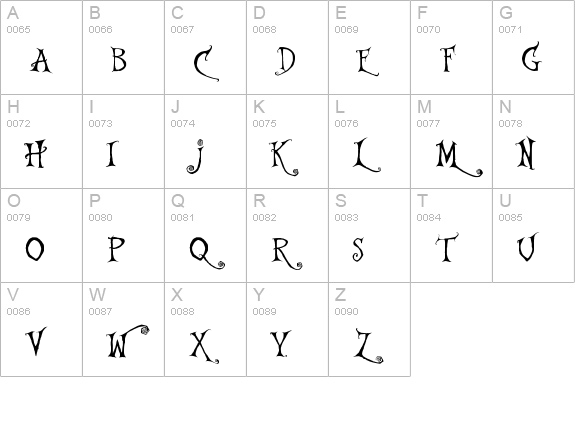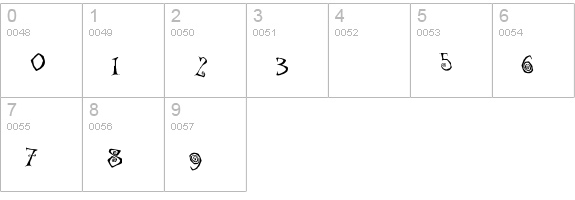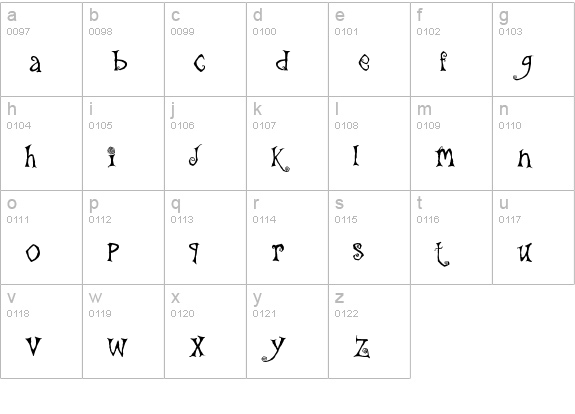
the Gingerbread House Font Details
Introducing the enchanting Gingerbread House font, a whimsical and deliciously delightful typeface that will transport you straight into a world of sweet indulgence. This font captures the essence of a fairytale gingerbread house, with its ornate detailing and charmingly rustic appeal. Crafted with meticulous care, Gingerbread House is a true feast for the eyes. Its curvaceous letterforms mimic the intricate icing patterns that adorn a freshly baked gingerbread masterpiece. Each letter is lovingly decorated with tiny sugar pearls, creating a sense of magical elegance and a touch of sugary sweetness. The Gingerbread House font is the perfect choice for those seeking to add a touch of warmth and playfulness to their designs. Whether you're designing a holiday card, creating a whimsical logo, or adding a festive touch to a party invitation, this font will effortlessly infuse your creations with a sense of joy and wonder. What's even better is that Gingerbread House is available for free! Yes, you read that right. This delightful font can be freely downloaded at FontsMarket.com, the ultimate destination for font enthusiasts. So, there's no need to worry about breaking the bank to bring a dash of magic to your projects. Unlock your creativity and let Gingerbread House weave its spell on your designs. With its delightful charm and freely available download, this font is sure to become a beloved addition to your font collection. So go ahead, embrace the whimsy and let Gingerbread House create a world of sweetness in your designs.